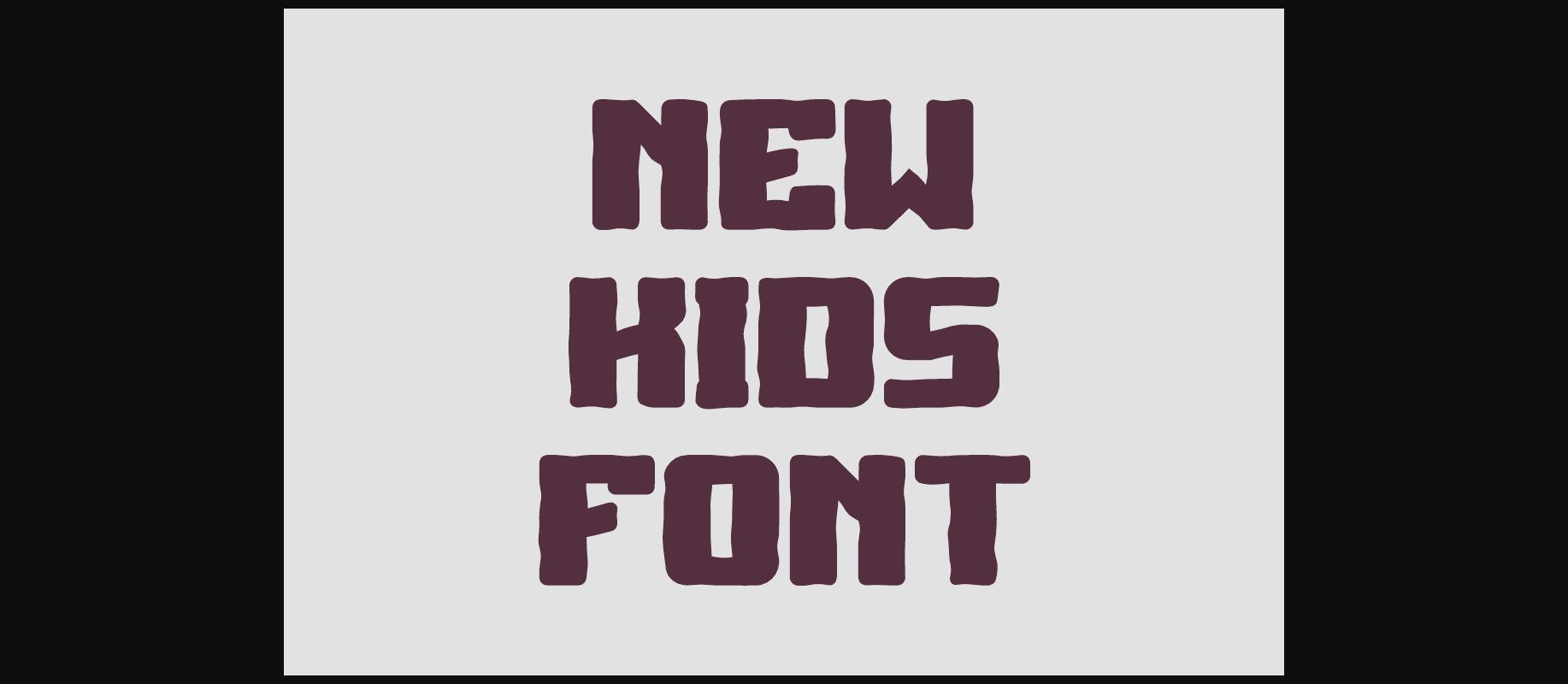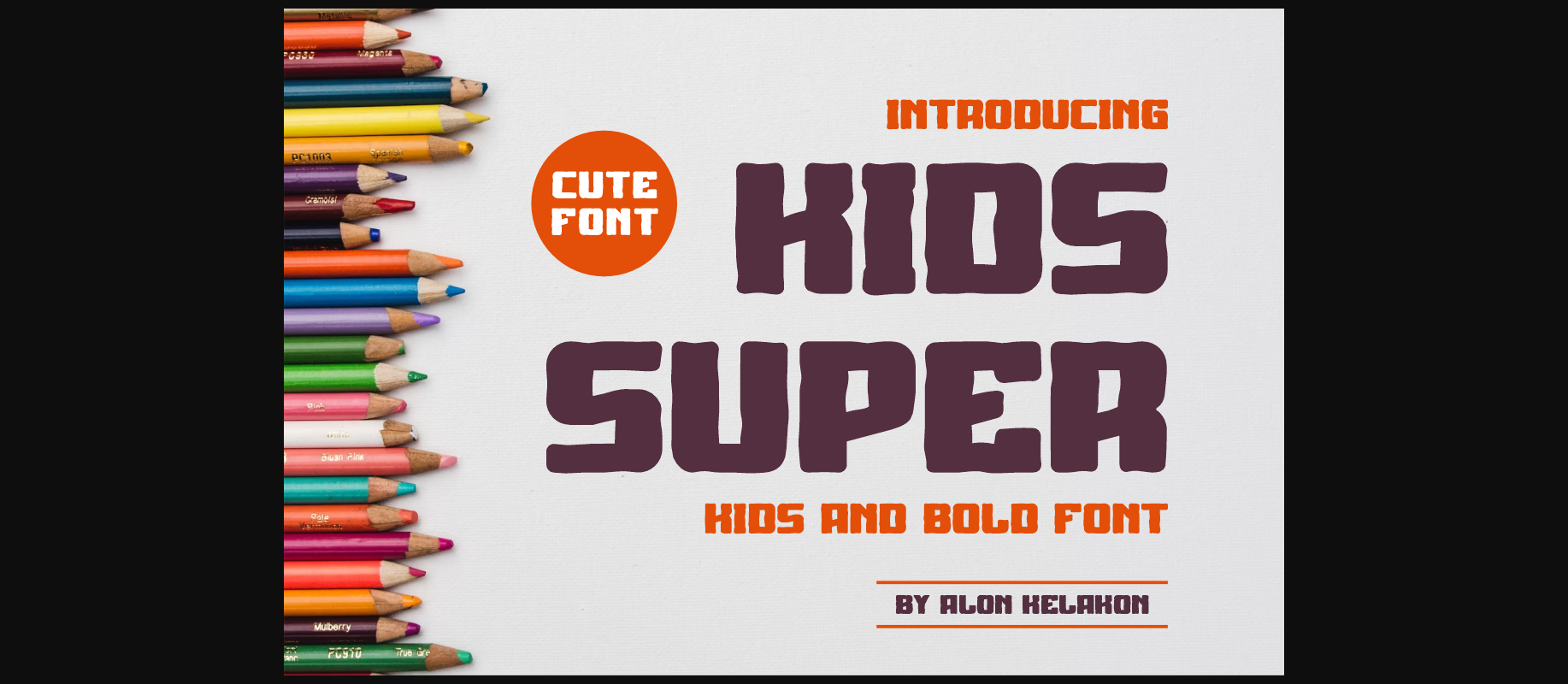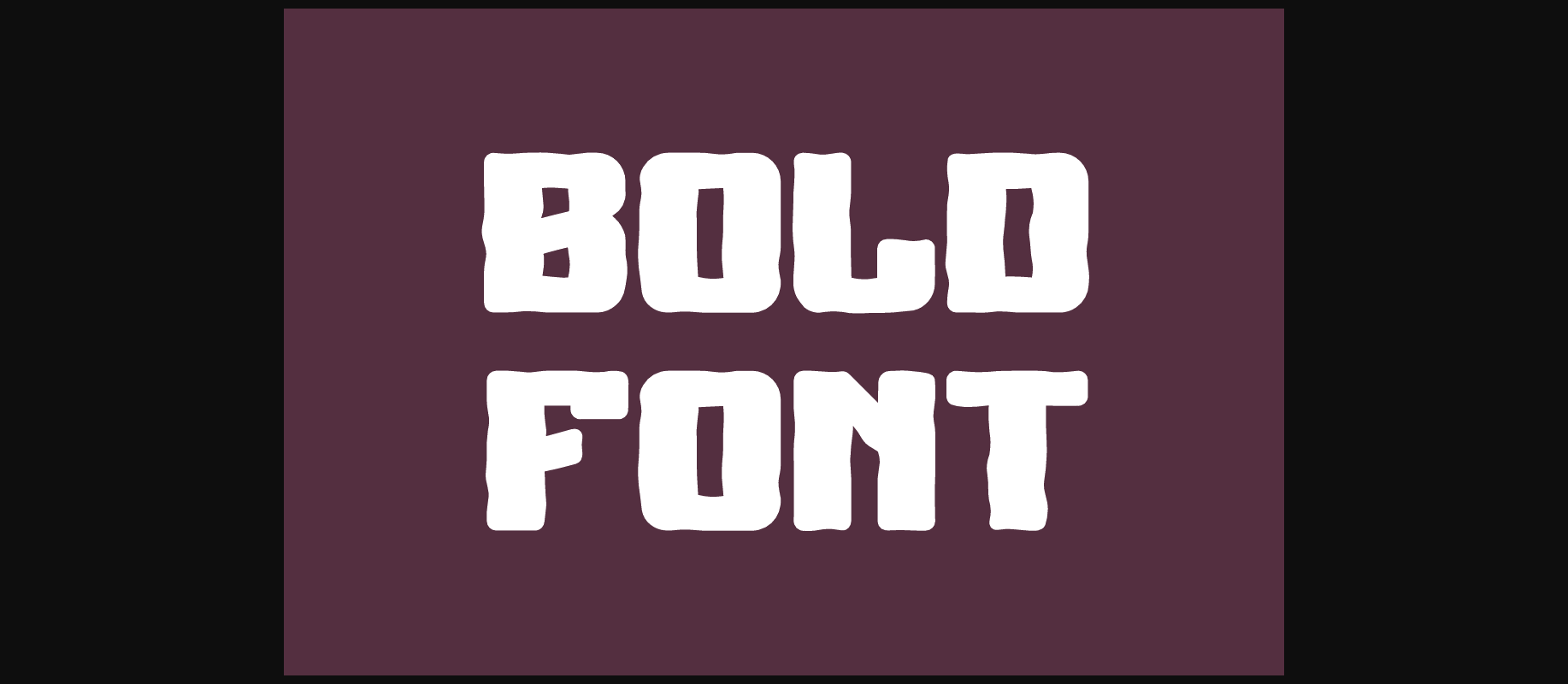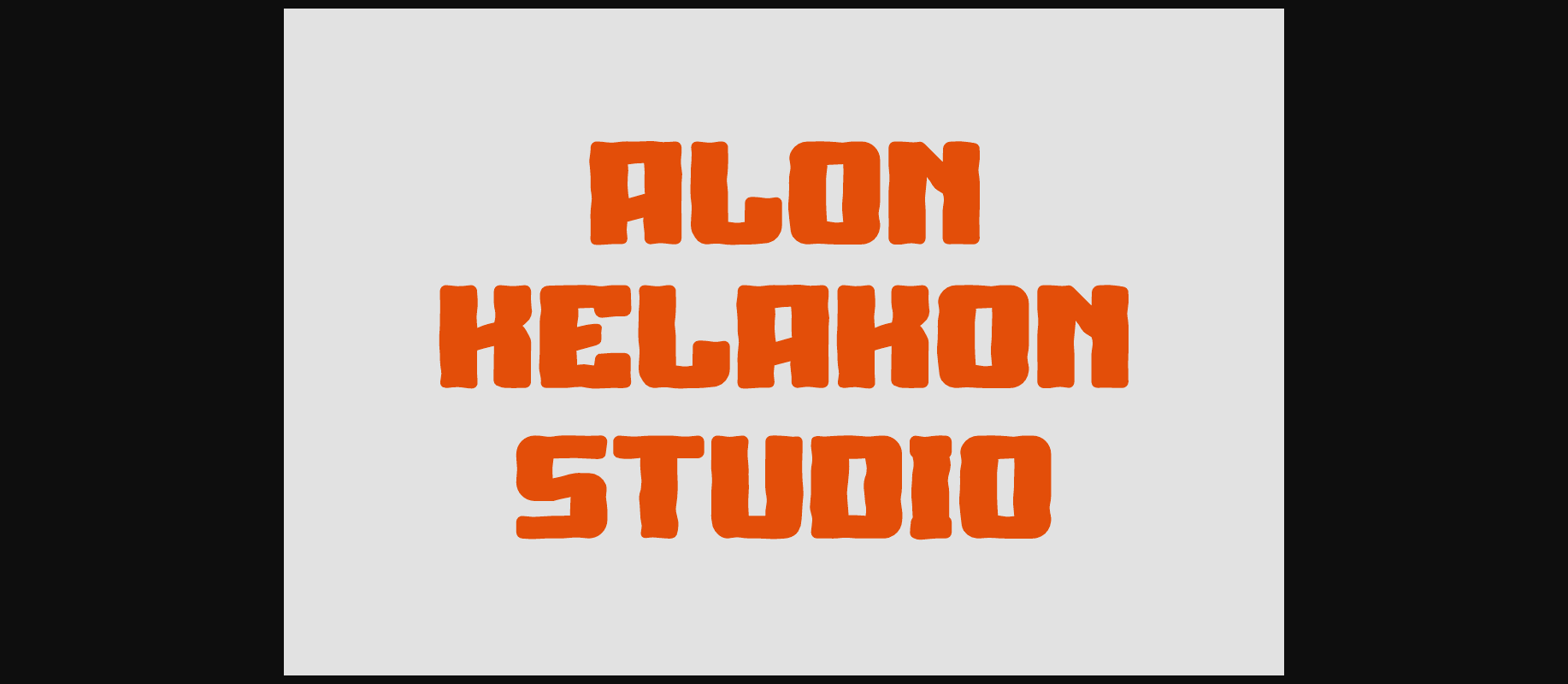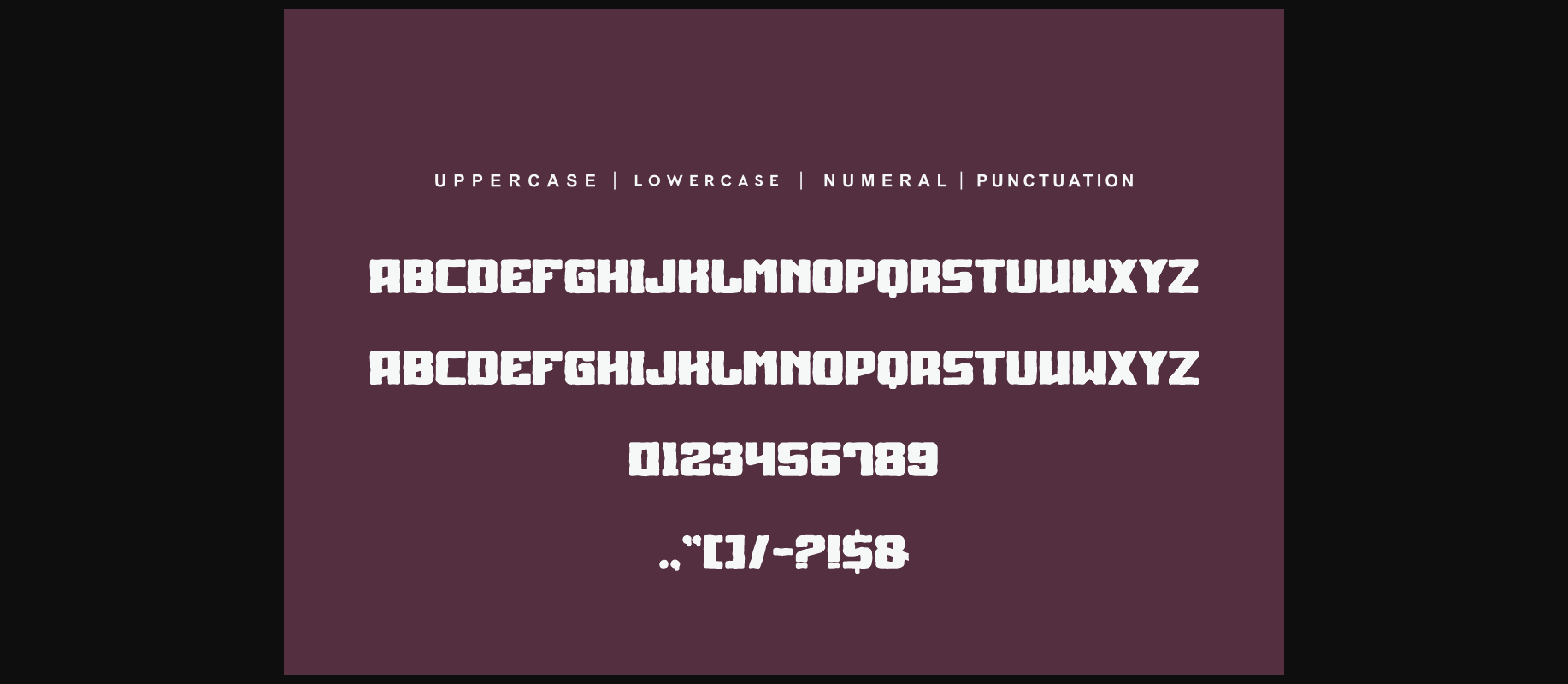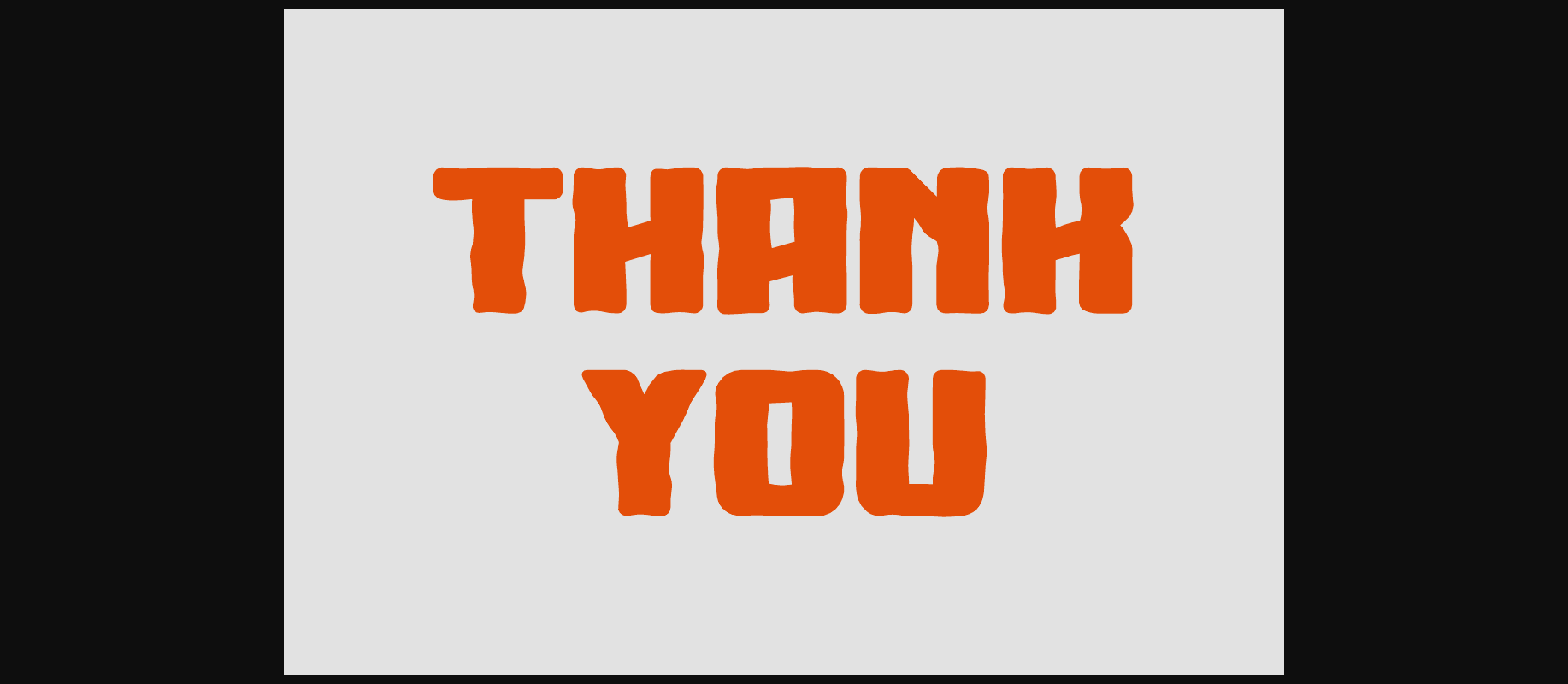
Kids Super Font
About Kids Super Font
Kids Super is a robust font designed to draw attention and highlight any project that requires a bold feel. It looks powerful and is created to add a vibrant touch to your sport-inspired designs. Suitable for sports design, team, jersey, league, movie, documenter, film, logo, poster, game, book cover, headlines, title, and many more projects.